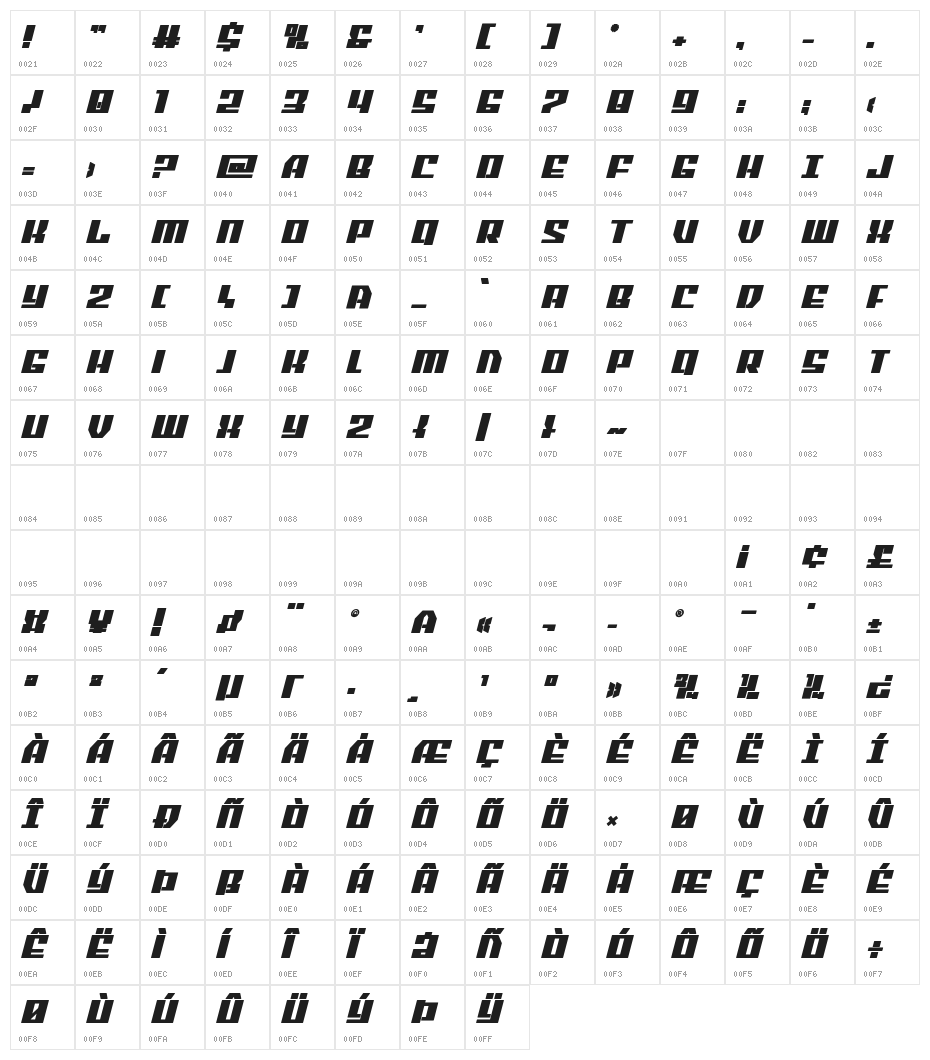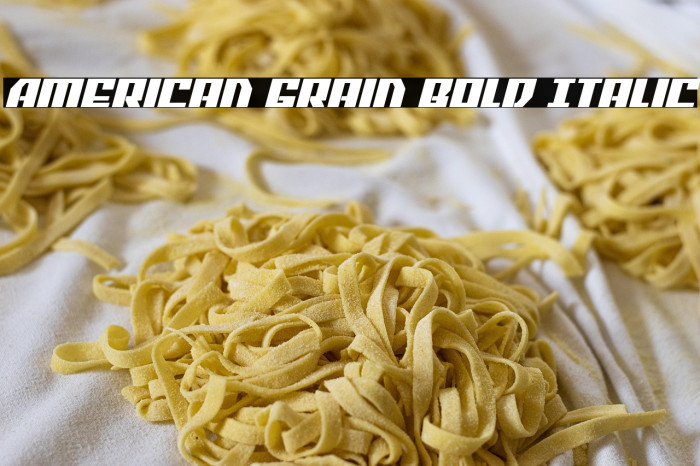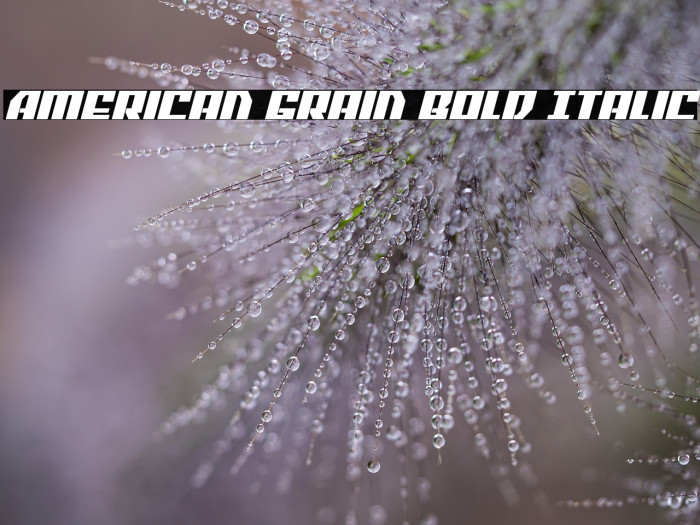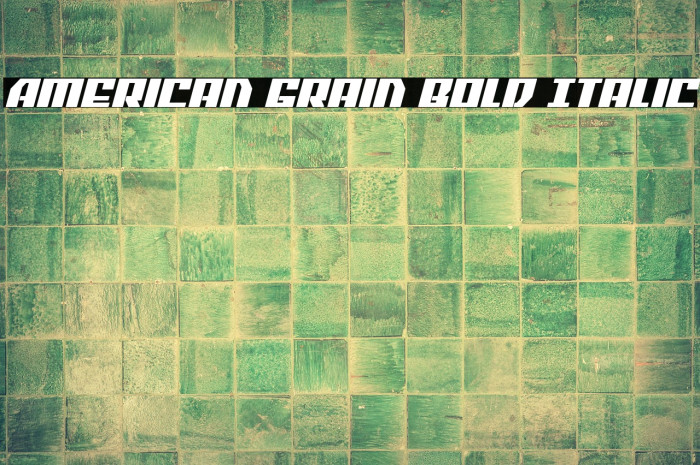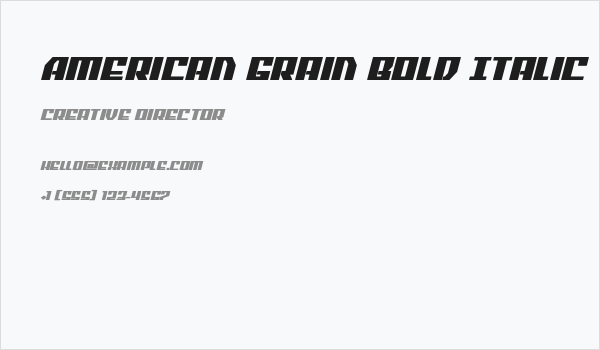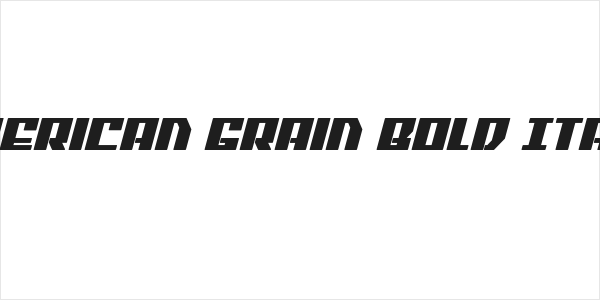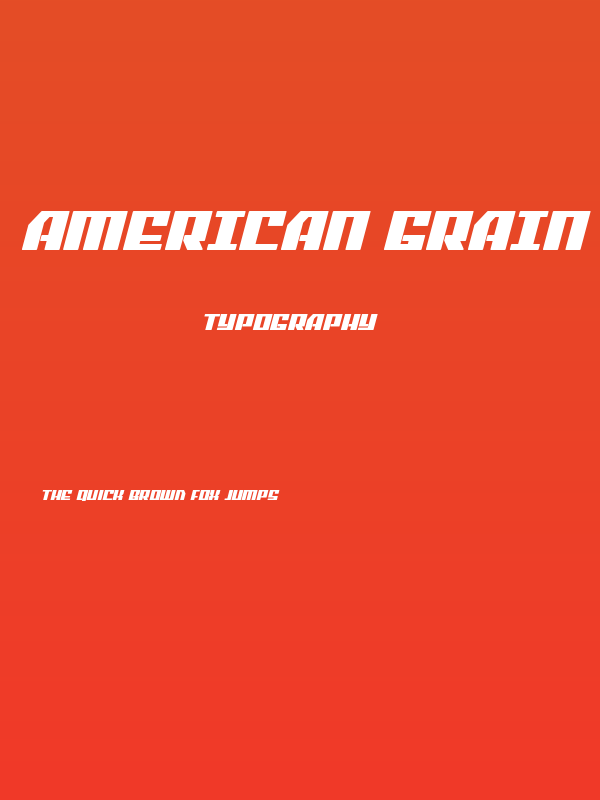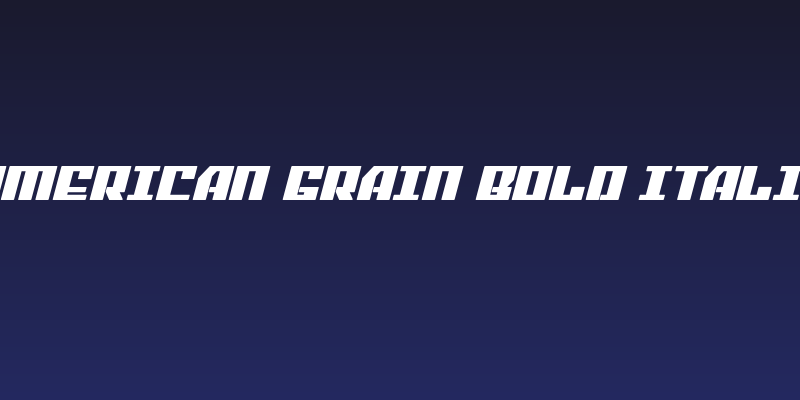
American Grain Bold Italic Font
American Grain Bold Italic Description
This font features a bold and italicized style with a strong, angular design. The characters are sharply defined with a distinct slant, giving them a dynamic and energetic appearance. The uppercase and lowercase letters maintain a consistent geometric structure, while the numerals and special characters follow the same bold and italicized theme. The font's thick strokes and sharp edges make it highly legible and impactful, suitable for attention-grabbing designs. Its modern and assertive style is ideal for projects that require a strong visual presence.